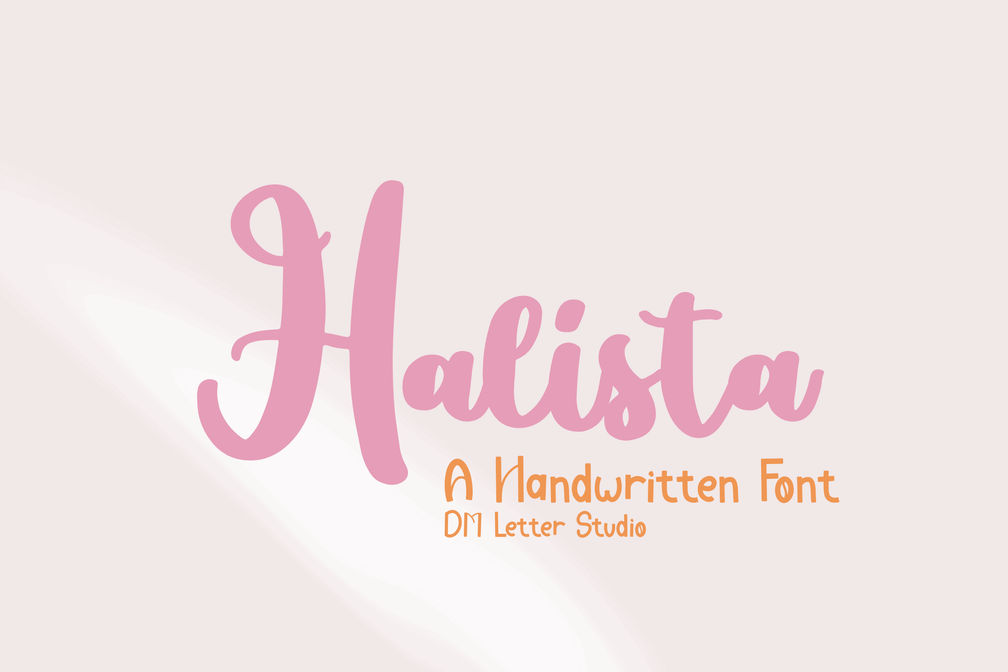
Halista
Halista – Handwritten Font
Halista is a charming handwritten font with a soft, flowing character and an effortless natural feel. Designed to mimic casual penmanship, it brings warmth and personality to any creative project. Whether you’re designing logos, quotes, or wedding invitations, Halista adds a graceful, handcrafted touch that feels both elegant and approachable.
Natural Handwriting Flow: Smooth strokes and a relaxed rhythm make this font feel authentically handwritten.
Casual Yet Elegant: Perfectly balanced to work in both playful and refined design settings.
Lowercase-Focused Design: Rounded, organic forms that pair beautifully with all-caps accents.